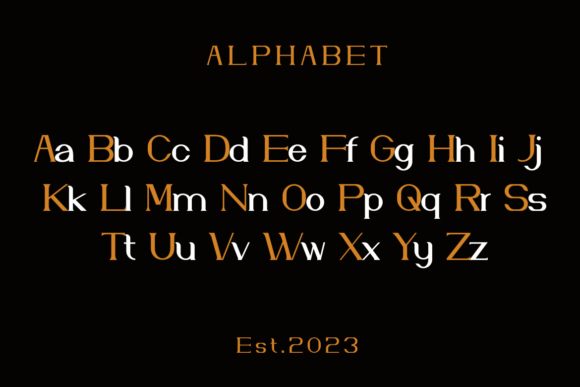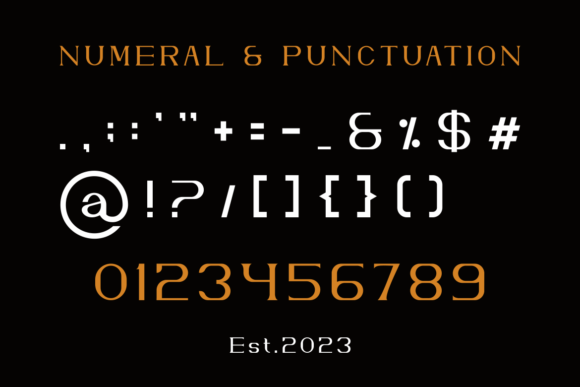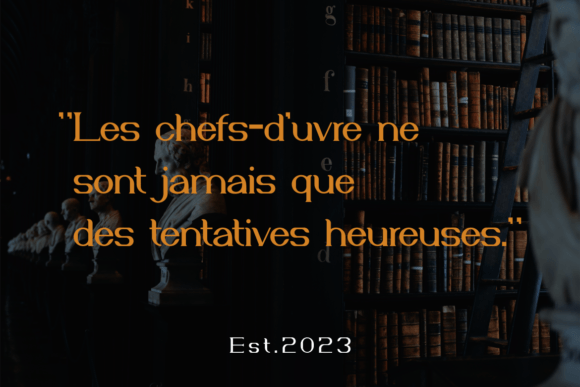
Fullyrin Font: Elevate Your Designs with Elegance and Sophistication
In the world of typography, fonts play a crucial role in conveying the tone and personality of a design. For designers and crafters looking for a modern display font that exudes natural elegance, Fullyrin Font is an excellent choice. This versatile font is perfect for a wide range of creative projects, from headlines and titles to logos, branding, posters, invitations, and more.
What is Fullyrin Font?
Fullyrin Font is a contemporary display font designed to add a touch of sophistication to any design. Its natural and elegant appearance makes it an ideal choice for designers seeking to create visually stunning projects. Whether you’re working on a logo, headline, or title, Fullyrin Font is sure to make a lasting impression.
Key Features of Fullyrin Font
- Modern Design: Fullyrin Font boasts a modern design that is both sleek and sophisticated.
- Elegant Appearance: The font’s natural elegance makes it perfect for designs that require a touch of refinement.
- Versatile: Fullyrin Font can be used on a wide range of creative projects, from headlines and titles to logos, branding, posters, and more.
- High-Quality: The font is designed to deliver high-quality results, ensuring that your designs look professional and polished.
Use Cases for Fullyrin Font
Fullyrin Font is an incredibly versatile font that can be used in a variety of creative projects. Here are some examples of how you can use this elegant font:
- Headlines and Titles: Use Fullyrin Font to create eye-catching headlines and titles that grab attention.
- Logos and Branding: The font’s modern design and elegant appearance make it perfect for logos and branding projects.
- Posters and Invitations: Fullyrin Font is ideal for creating visually stunning posters and invitations that leave a lasting impression.
- Books and Magazines: The font’s readability and elegance make it suitable for use in books and magazines.
Why Choose Fullyrin Font?
With so many fonts available, why choose Fullyrin Font? Here are a few reasons why designers and crafters love this modern display font:
- Unique Design: Fullyrin Font has a unique design that sets it apart from other fonts.
- High-Quality Results: Fullyrin Font delivers high-quality results, ensuring that your designs look professional and polished.
- Versatility: The font’s versatility makes it perfect for a wide range of creative projects.
Tips for Using Fullyrin Font
To get the most out of Fullyrin Font, here are a few tips to keep in mind:
- Use it as a Display Font: Fullyrin Font is designed to be used as a display font, so use it to create headlines, titles, and other attention-grabbing elements.
- Experiment with Font Sizes: The font looks great in a variety of sizes, so experiment with different font sizes to find the one that works best for your design.
- Pair it with Other Fonts: Fullyrin Font pairs well with other fonts, so don’t be afraid to experiment with different font combinations.
Fullyrin Font is a modern display font that is perfect for designers and crafters looking to add a touch of elegance and sophistication to their designs. With its natural and elegant appearance, versatility, and high-quality results, this font is sure to become a favorite in your design arsenal. Whether you’re working on a logo, headline, title, or other creative project, Fullyrin Font is an excellent choice.